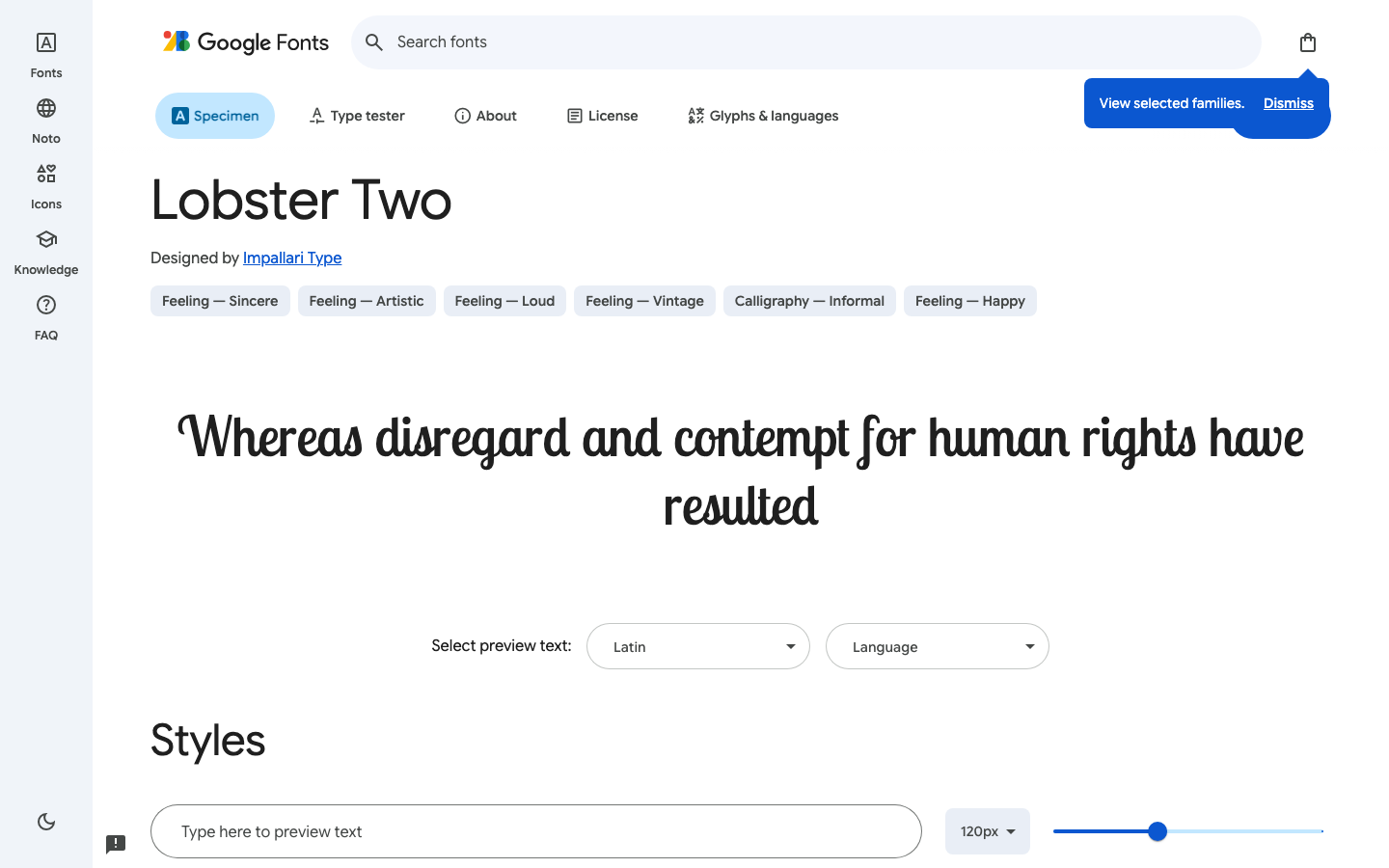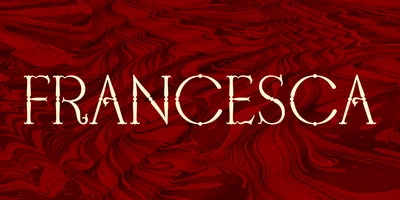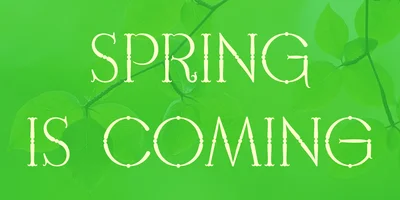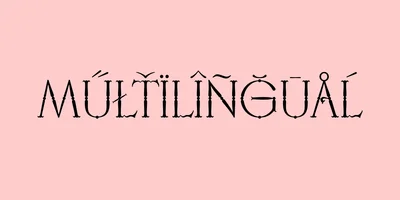
Francesca vs Lobster Two
Francesca and Lobster Two are both display typefaces from different design traditions. Where Francesca leans display, elegant, Lobster Two brings script, warm. Compare which suits your Branding project.
| Feature | Francesca | Lobster Two |
| Classification | display | display |
| Language Support | latin, latin-extended, cyrillic | latin, latin-extended, cyrillic |
| Source | 2D Typo | Impallari Type |
Recommended: Francesca
- display, elegant design character
- Suited for Editorial and Fashion
Consider: Lobster Two
- script, warm design character
- Suited for Logos and Casual Display